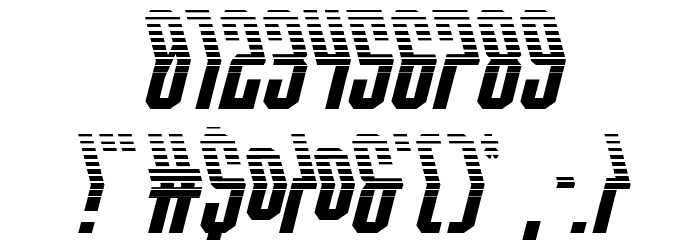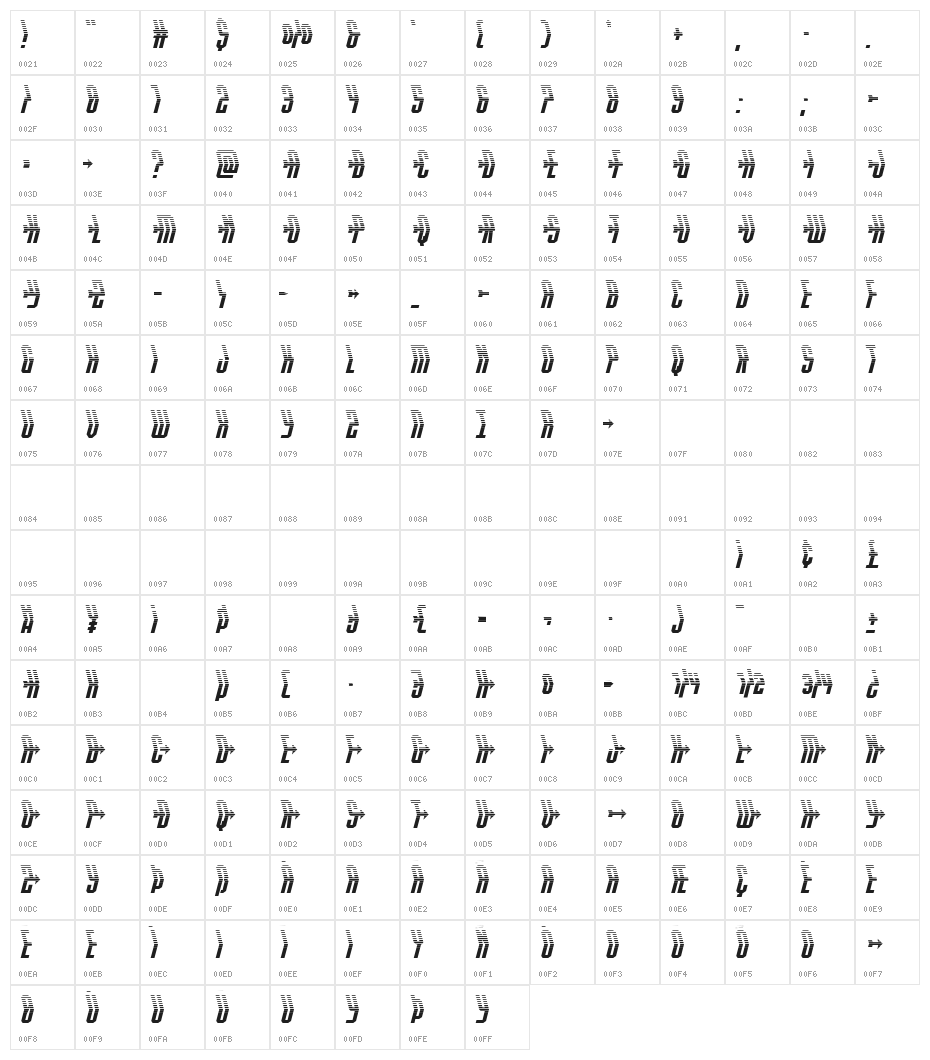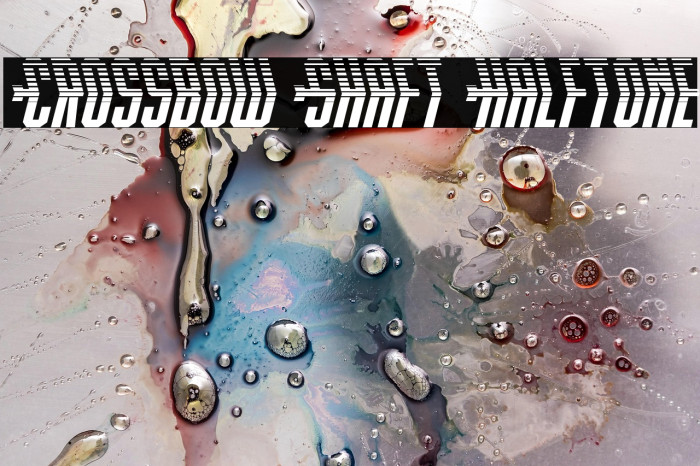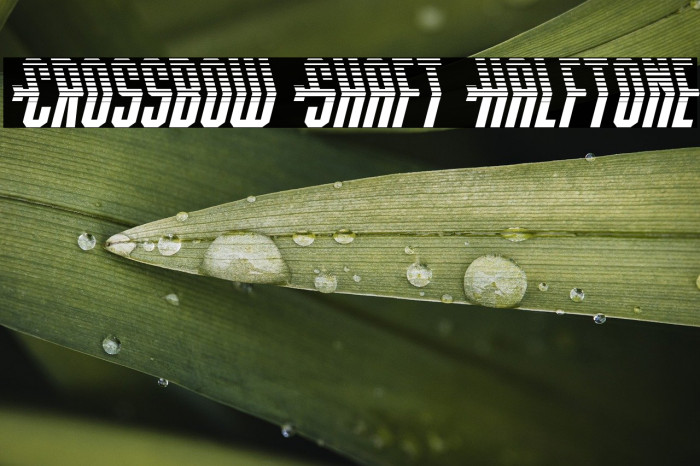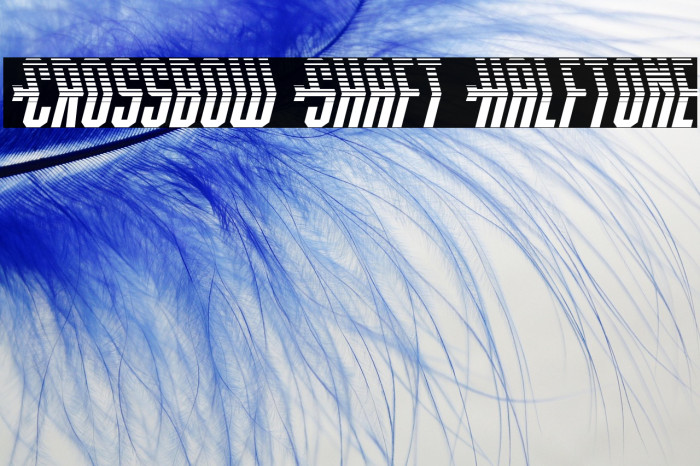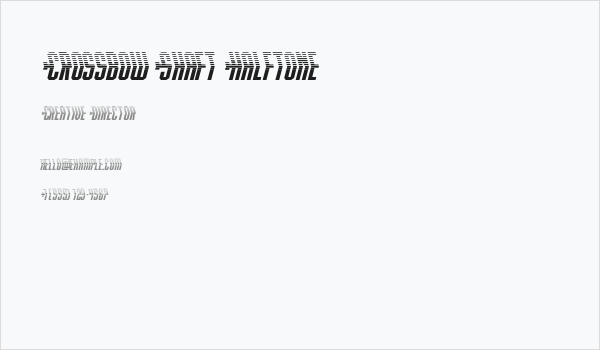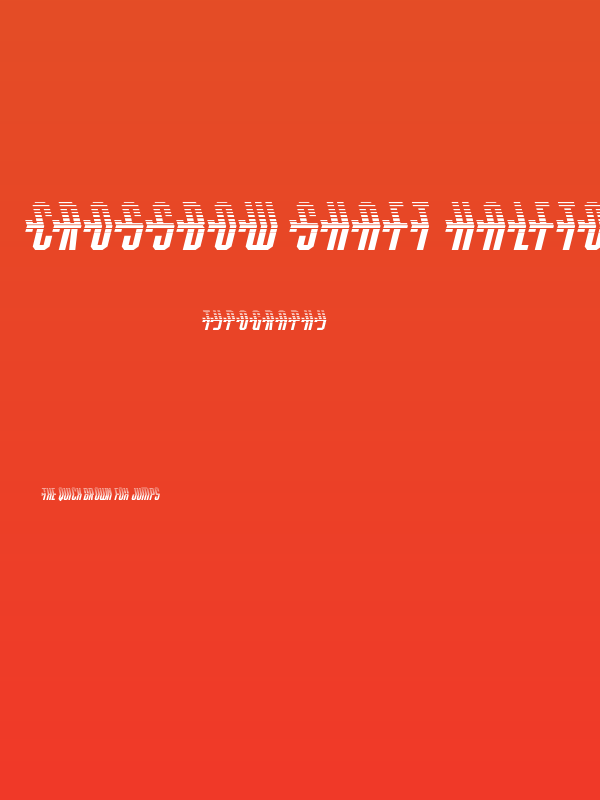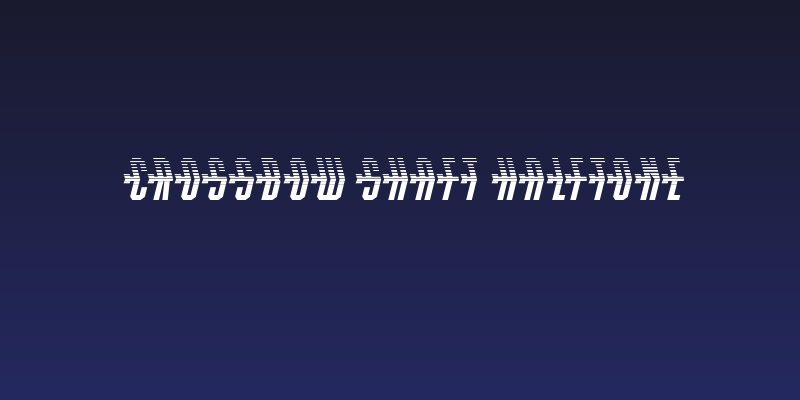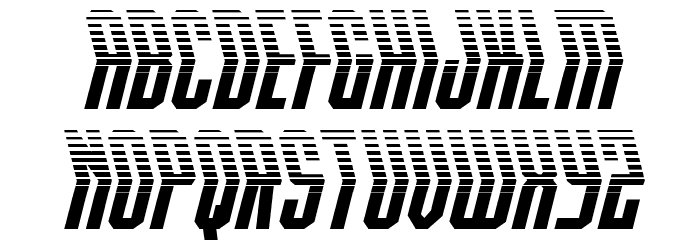
Crossbow Shaft Halftone Font
Crossbow Shaft Halftone Description
This font features a bold, dynamic design with a halftone effect that gives it a unique, futuristic appearance. The characters are constructed with horizontal lines that create a sense of movement and depth. The uppercase and lowercase letters, as well as numbers and special characters, maintain a consistent style that is both striking and cohesive. The font's angular shapes and sharp edges contribute to its modern and edgy look, making it ideal for projects that require a strong visual impact.
| Proposed Projects | Ideal for futuristic branding, tech-related designs, video game graphics, and edgy posters. |